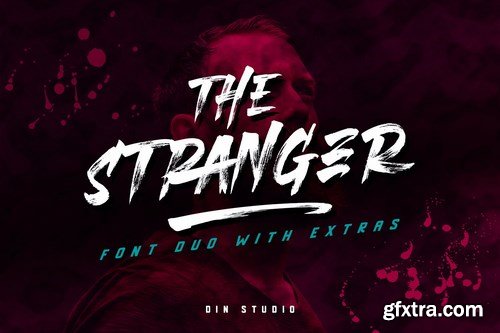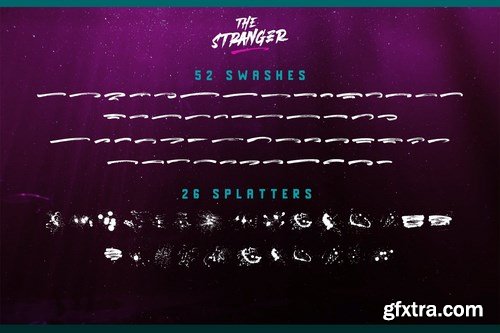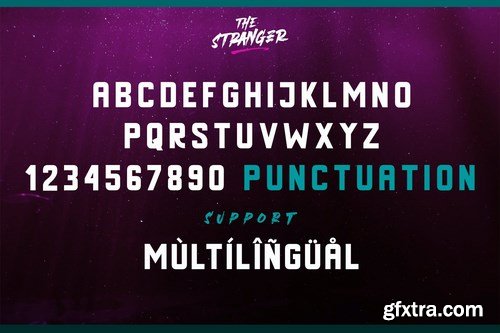
The Stranger is a brush font and combines with sans font. Made with naturally brush. The texture from the brush font will make your design more beautiful and powerful. This font is suitable for any design like branding, quotes, t-shirt printing and etc.